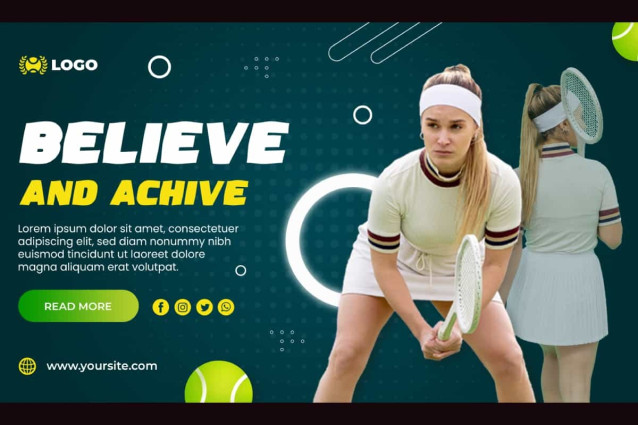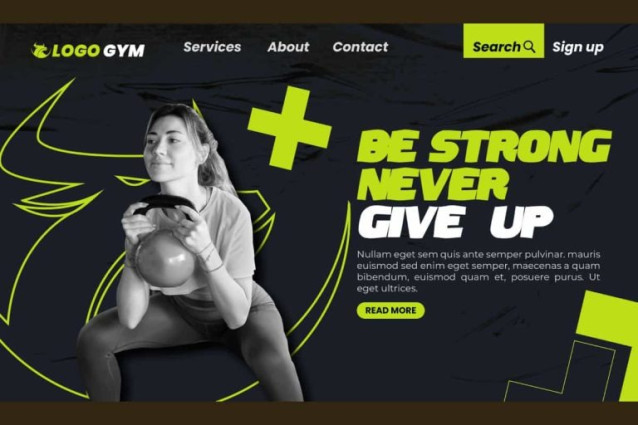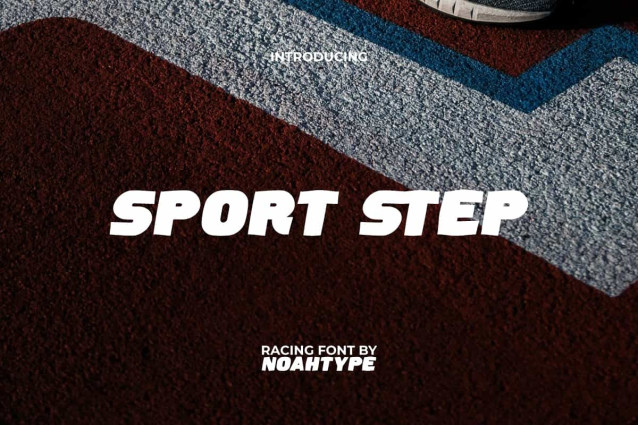
Sport Step Font
Sport Step Font is a cool and modern racing themed font, created by NoahType. This font has a casual style that will fit into a variety of designs and will be clearly readable.. This font will be suitable for a lot of projects, such as custom design, stationery, label, poster, signage, catalog, cover, quotes, website, and more!
Sport Step Font includes full set of Uppercase and Lowercase Basic Characters, Numerals and Punctuation. This font has an attractive appearance that will make you believe it is the perfect choice for many industries, such as sports, racing, game, automotive, advertisement, café, event organizer, fashion, printing, publishing, etc.